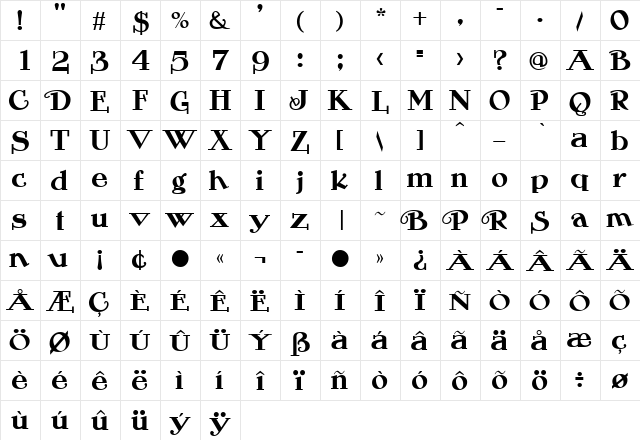
Rogers Normal
Design Context for Rogers Typeface
Rogers offers clean, dependable letterforms without strong stylistic allegiance, making it a practical choice for designers who need flexibility.
Pro Tip: Pair Rogers with a font of contrasting weight or personality to build a more expressive typographic hierarchy.